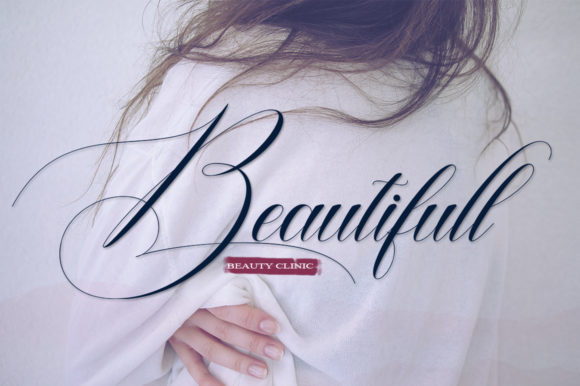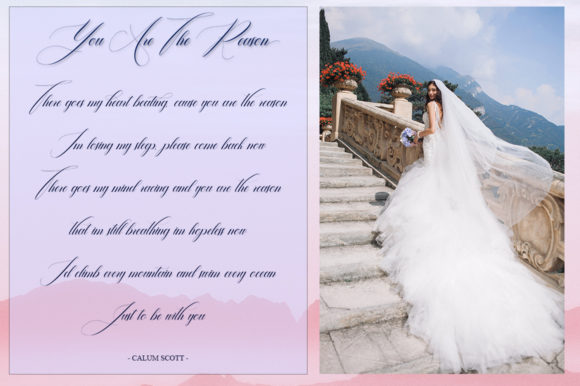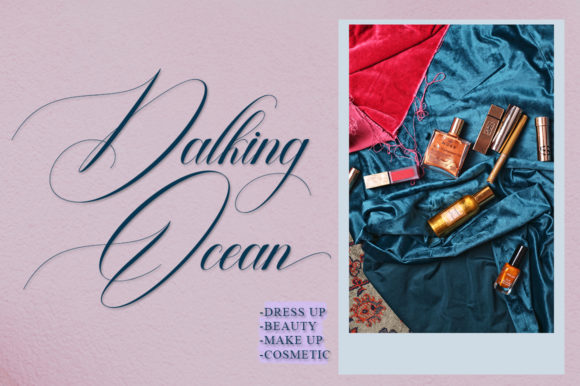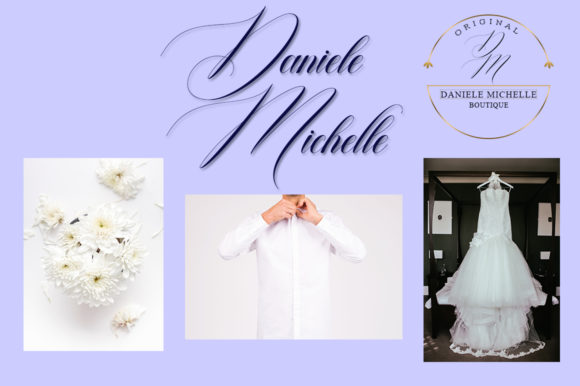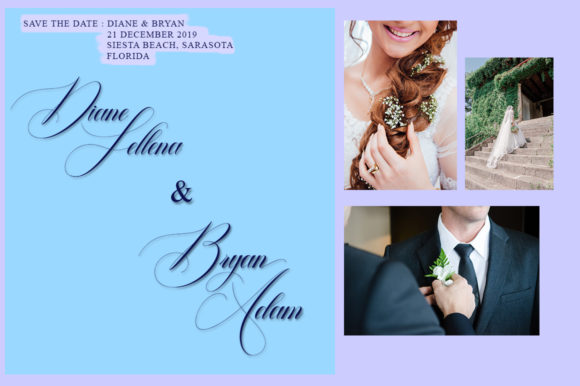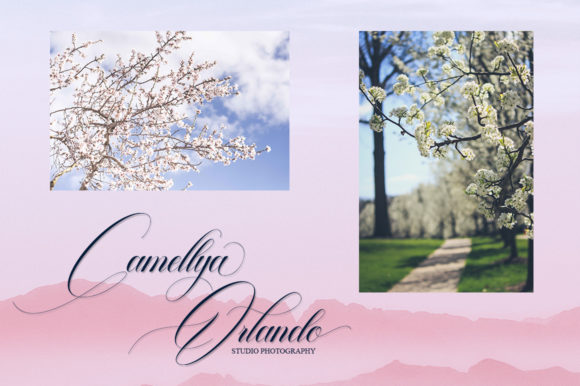
Bully Gatte Font: Elevate Your Designs with Sophistication
In the world of typography, fonts play a crucial role in conveying the tone and personality of a design. For designers and crafters looking to add a touch of sophistication to their projects, the Bully Gatte font is an excellent choice. This stunning script font combines bold swashes and organic ligatures to create a beautiful handwritten font that is sure to elevate your designs.
The Beauty of Bully Gatte Font
Bully Gatte is a script font that exudes elegance and refinement. Its bold swashes and organic ligatures give it a unique and distinctive feel that sets it apart from other fonts. The font’s sophisticated design makes it perfect for a variety of projects, from wedding invitations and branding materials to packaging and advertising.
Key Features of Bully Gatte Font
- Bold Swashes: The font features bold swashes that add a touch of drama and flair to your designs.
- Organic Ligatures: The font’s organic ligatures create a natural and fluid feel that gives your text a handwritten look.
- Sophisticated Design: The font’s sophisticated design makes it perfect for high-end branding and luxury projects.
- Versatile: The font is versatile and can be used for a variety of projects, from print to digital.
Uses of Bully Gatte Font
Bully Gatte font is perfect for designers and crafters who want to add a touch of sophistication to their projects. Here are some of the ways you can use this stunning font:
- Wedding Invitations: The font’s elegant design makes it perfect for wedding invitations, save-the-date cards, and other wedding-related materials.
- Branding: The font’s sophisticated design makes it ideal for high-end branding and luxury projects.
- Packaging: The font’s bold swashes and organic ligatures make it perfect for packaging designs that require a touch of elegance.
- Advertising: The font’s unique design makes it perfect for advertising projects that require a touch of sophistication.
Tips for Using Bully Gatte Font
Here are some tips for using Bully Gatte font in your designs:
- Pair it with a Simple Font: Pair Bully Gatte font with a simple font to create a beautiful contrast.
- Use it for Headlines: Use Bully Gatte font for headlines and titles to add a touch of sophistication.
- Experiment with Colors: Experiment with different colors to find the perfect combination that works with your design.
In conclusion, Bully Gatte font is a stunning script font that combines bold swashes and organic ligatures to create a beautiful handwritten font. Its sophisticated design makes it perfect for designers and crafters who want to add a touch of elegance to their projects. With its versatility and unique design, Bully Gatte font is sure to elevate your designs and take them to the next level.
Overall, Bully Gatte font is a beautiful and sophisticated font that is sure to add a touch of elegance to your designs. Its unique design and versatility make it perfect for a variety of projects, from wedding invitations to branding materials.